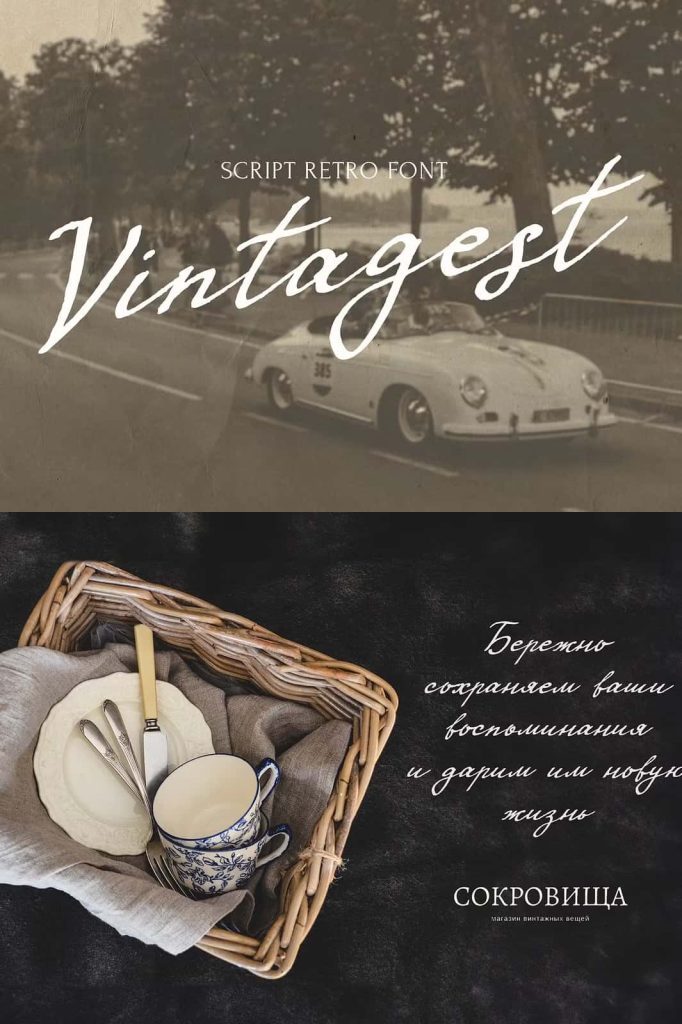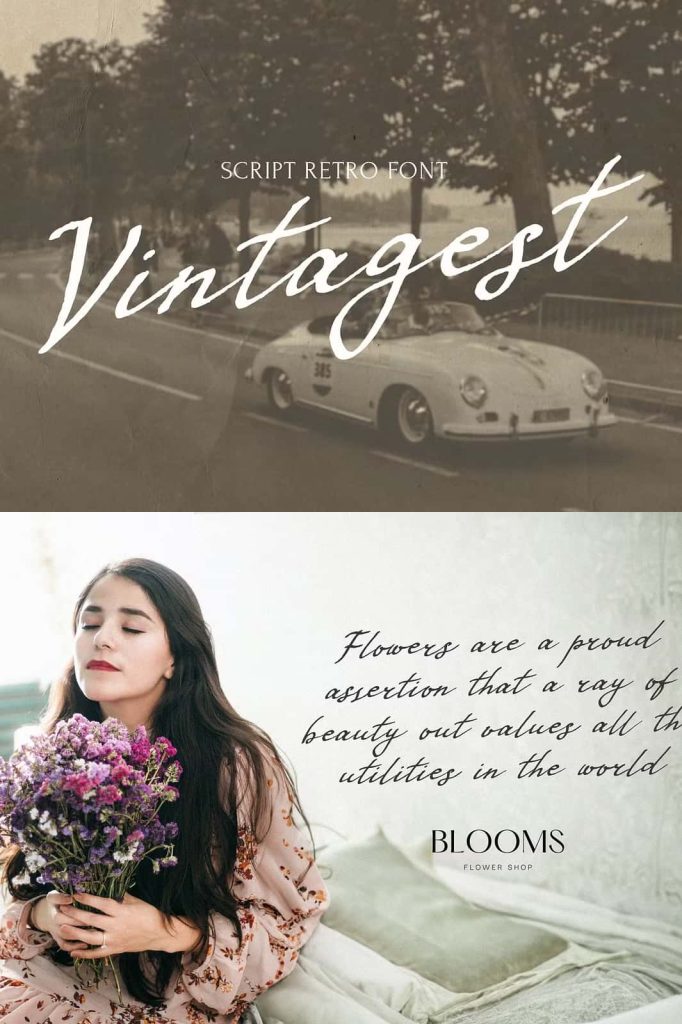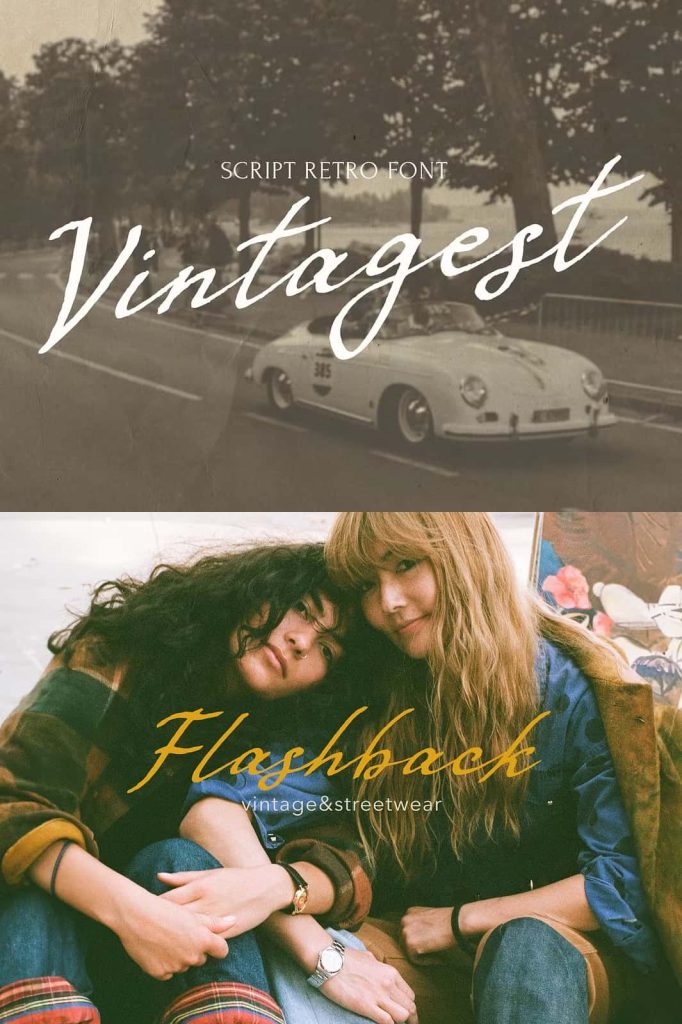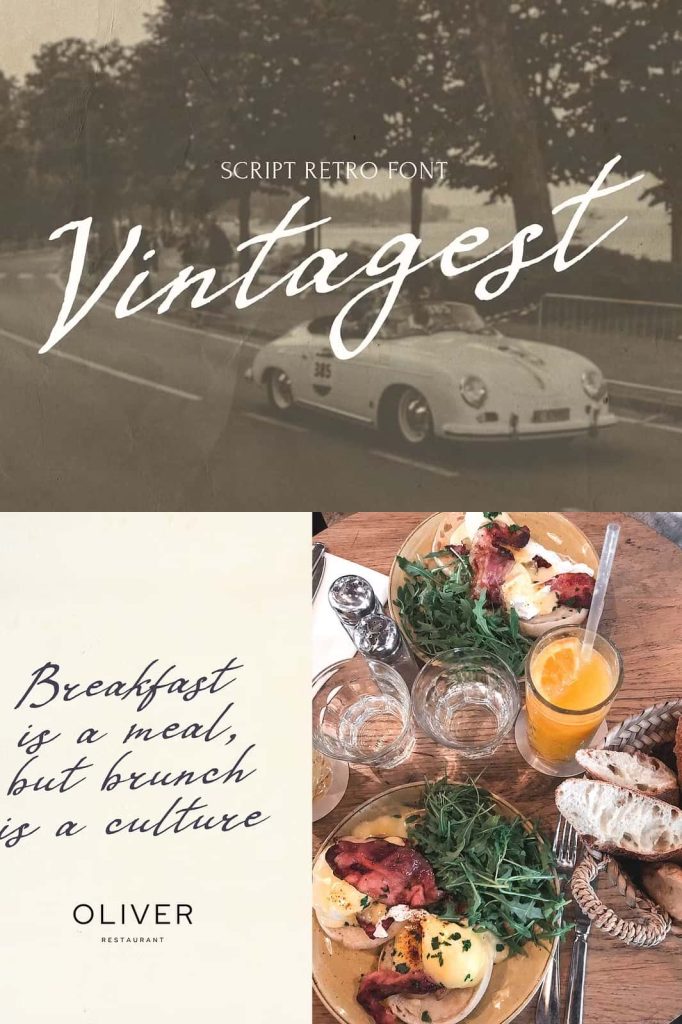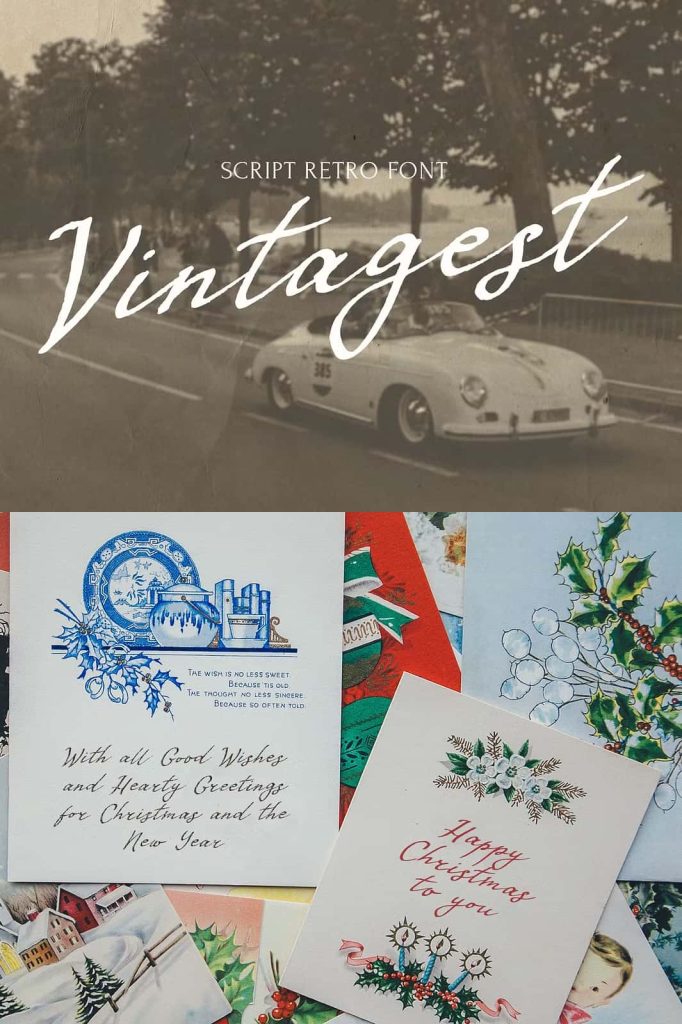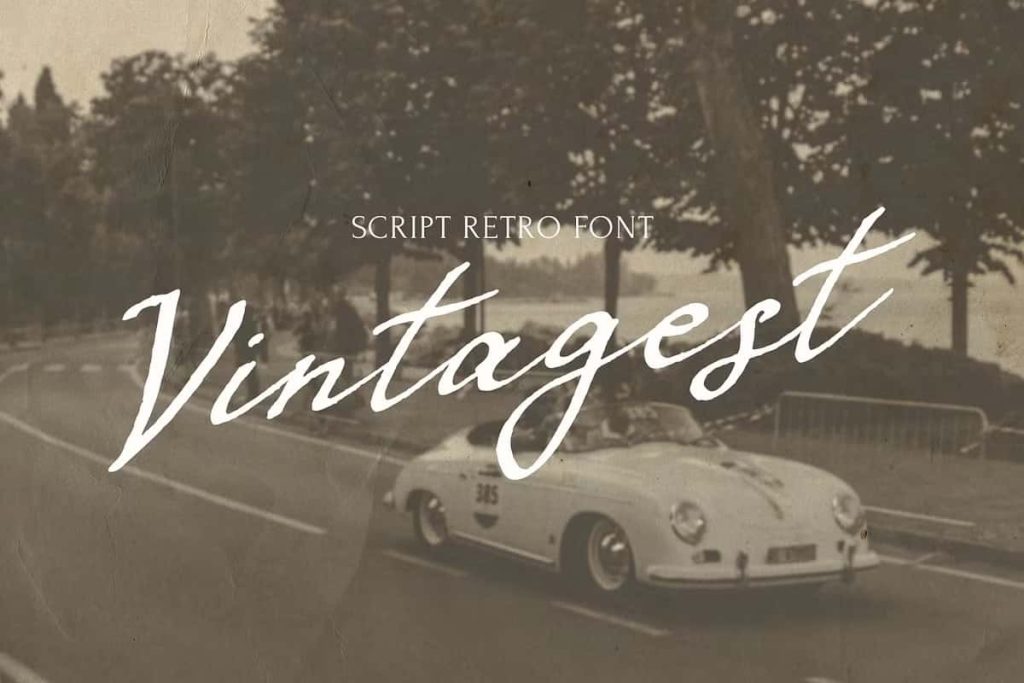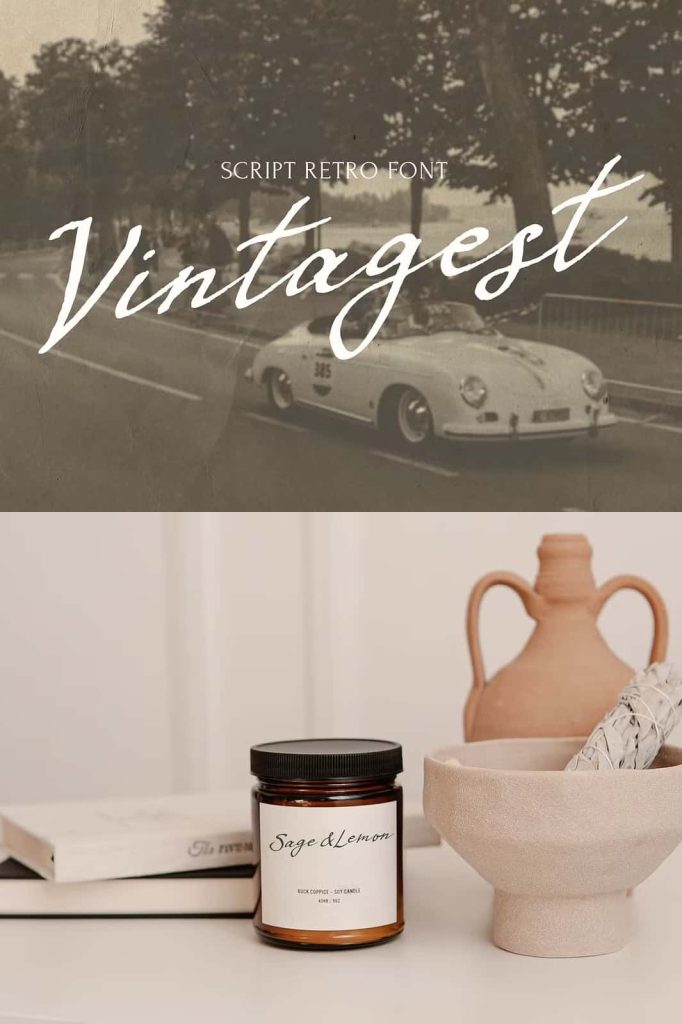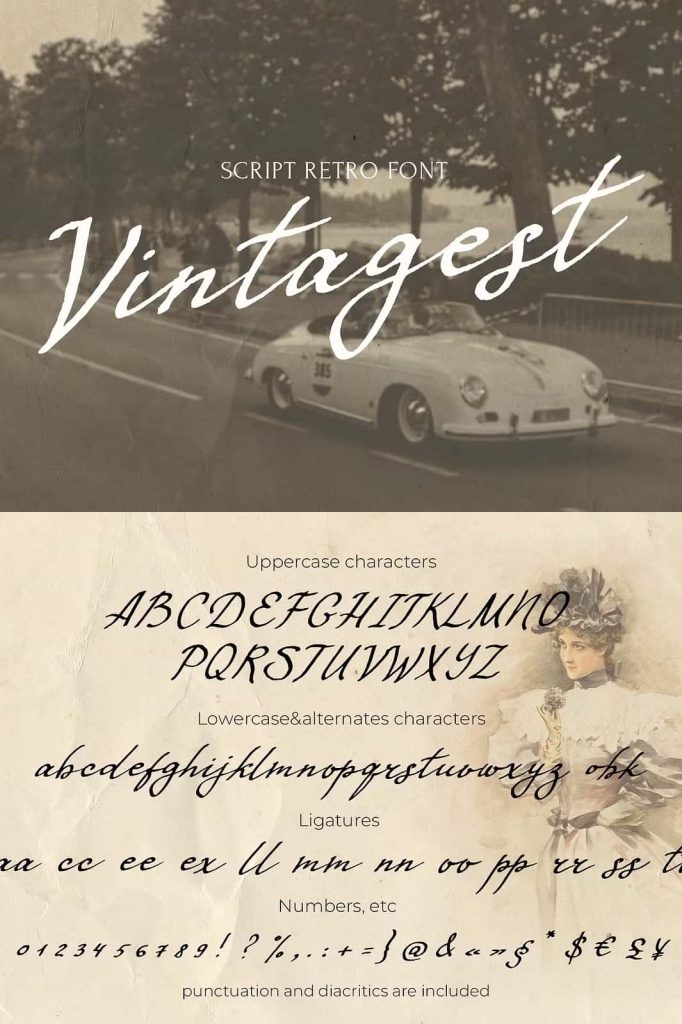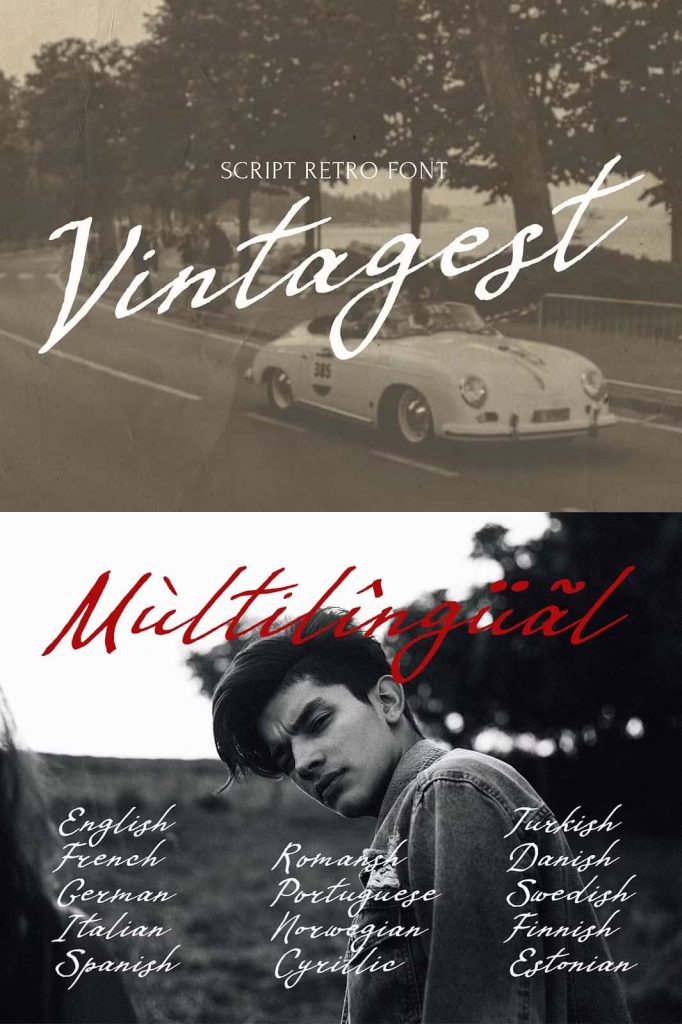
Vintagest Handwritten Retro Font: Authentic Vintage Style with Personal Expression
Vintagest is a handwritten retro font that captures the warmth and authenticity of classic handwritten lettering. Created using a flat pen and ink, this typeface brings a sense of history and craftsmanship into modern design. It does not simply imitate vintage style—it actively recreates the careful, thoughtful writing once found in personal letters and timeless documents. Every stroke reflects intention, making Vintagest a powerful choice for designers who want to evoke emotion and nostalgia.
Inspired by the Art of Traditional Handwriting
Vintagest draws strong inspiration from handwritten letters of the past, where every word carried meaning and care. The font reflects the slow, deliberate writing style often associated with earlier generations. It channels the elegance of handwritten communication, where each curve and line was crafted with patience and precision. This attention to detail gives the font a natural rhythm and authenticity that digital fonts often lack.
The use of a flat pen creates distinctive stroke variations, delivering a rich contrast that enhances readability and visual appeal. These variations add character and depth, making each letter feel alive. Designers can use this expressive quality to build emotional connections with their audience while maintaining a strong visual identity.
Rich Ligatures and Alternative Characters
One of the defining strengths of Vintagest lies in its extensive collection of ligatures and alternative characters. These features allow designers to create text that feels organic and dynamic rather than repetitive. By combining different character variations, users can achieve a more natural handwritten flow that closely resembles real ink on paper.
The font encourages creativity by offering flexibility in composition. Designers can experiment with different stylistic combinations to achieve unique results in every project. This adaptability makes Vintagest suitable for both subtle elegance and bold vintage statements.
Multilingual Support for Global Creativity
Vintagest supports a wide range of languages, including Cyrillic, making it a versatile tool for international design projects. This broad language support ensures that designers can maintain a consistent visual style across different regions and audiences. Whether creating branding materials for a global company or designing localized content, Vintagest provides the flexibility needed to communicate effectively.
The font maintains its character and readability across different alphabets, ensuring that its vintage charm remains intact regardless of language. This makes it an excellent choice for designers who value both aesthetics and functionality.
Perfect for a Wide Range of Design Applications
Vintagest adapts easily to various creative uses, making it a valuable addition to any designer’s toolkit. In logo design, it creates a strong and memorable identity by adding a personal, handcrafted feel. Brands that want to appear authentic and approachable can benefit from its expressive style.
For packaging design, Vintagest enhances the visual appeal of products by introducing a sense of heritage and quality. It works particularly well for artisanal goods, handmade products, and vintage-inspired branding. The font communicates care and craftsmanship, helping products stand out on shelves and in digital marketplaces.
In advertising, Vintagest captures attention with its distinctive look. It allows designers to create campaigns that feel unique and engaging, drawing viewers in with its nostalgic charm. The font also performs well in product design, where it can add personality and storytelling to physical and digital items.
Websites and blogs benefit from Vintagest’s ability to create a warm and inviting atmosphere. It helps establish a tone that feels personal and genuine, encouraging users to connect with the content. Whether used in headers, quotes, or branding elements, the font enhances the overall user experience.
A Typeface That Brings Stories to Life
Vintagest does more than display text—it tells a story. Its handcrafted style connects modern audiences with the beauty of traditional writing. By choosing Vintagest, designers can create work that feels meaningful, expressive, and timeless.
This font empowers creatives to move beyond generic typography and embrace a style that carries emotion and authenticity. With its rich features, versatile applications, and strong visual identity, Vintagest stands as a reliable choice for anyone seeking to create impactful and memorable designs.